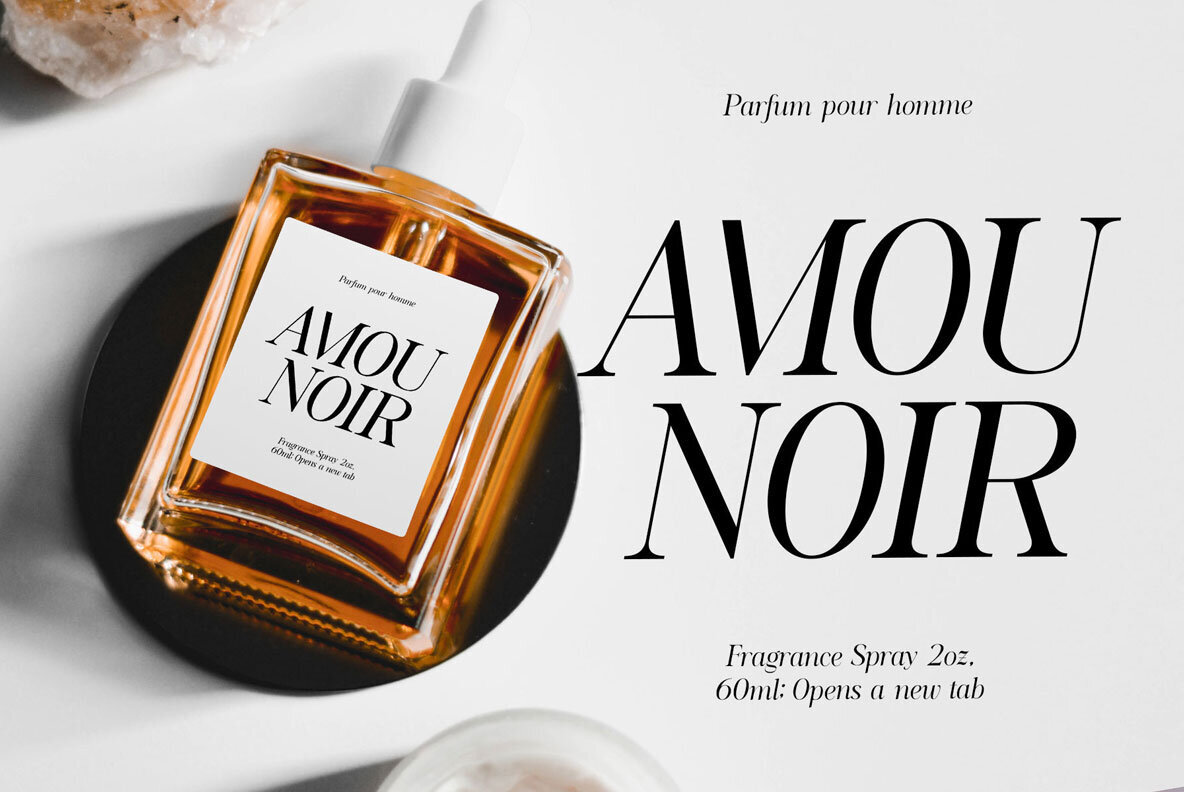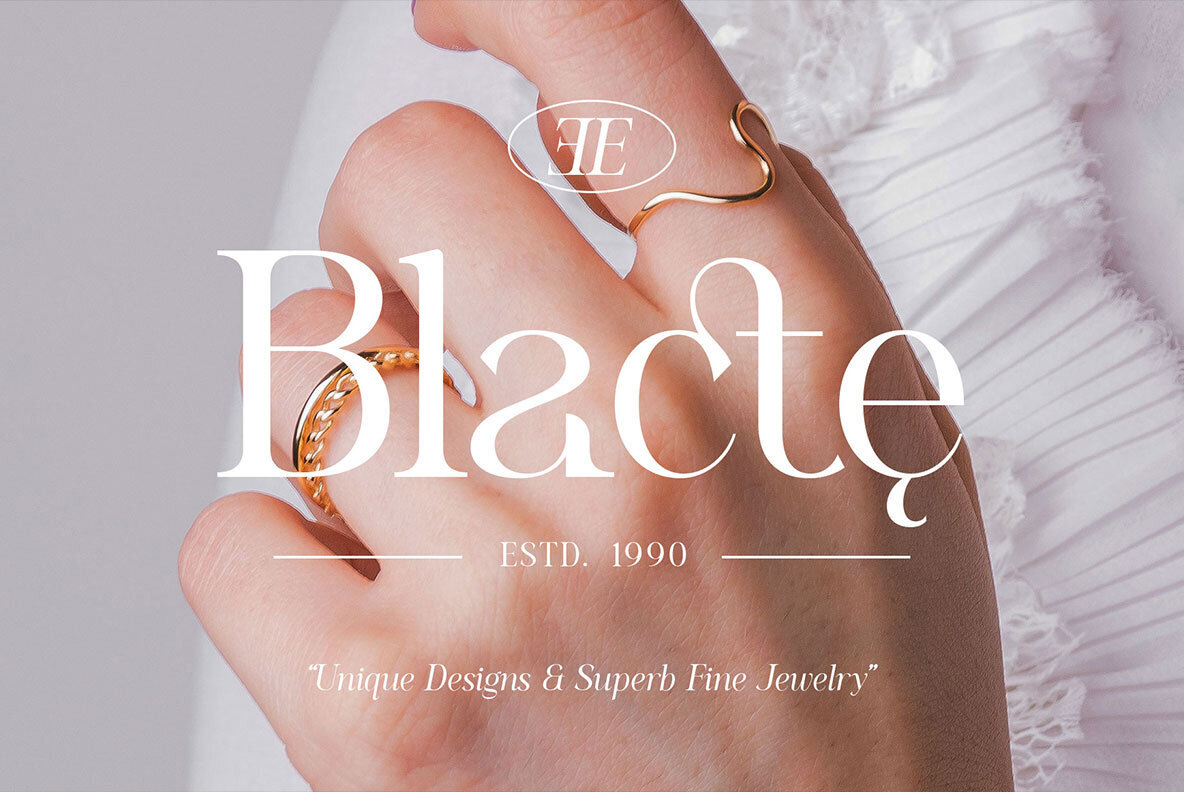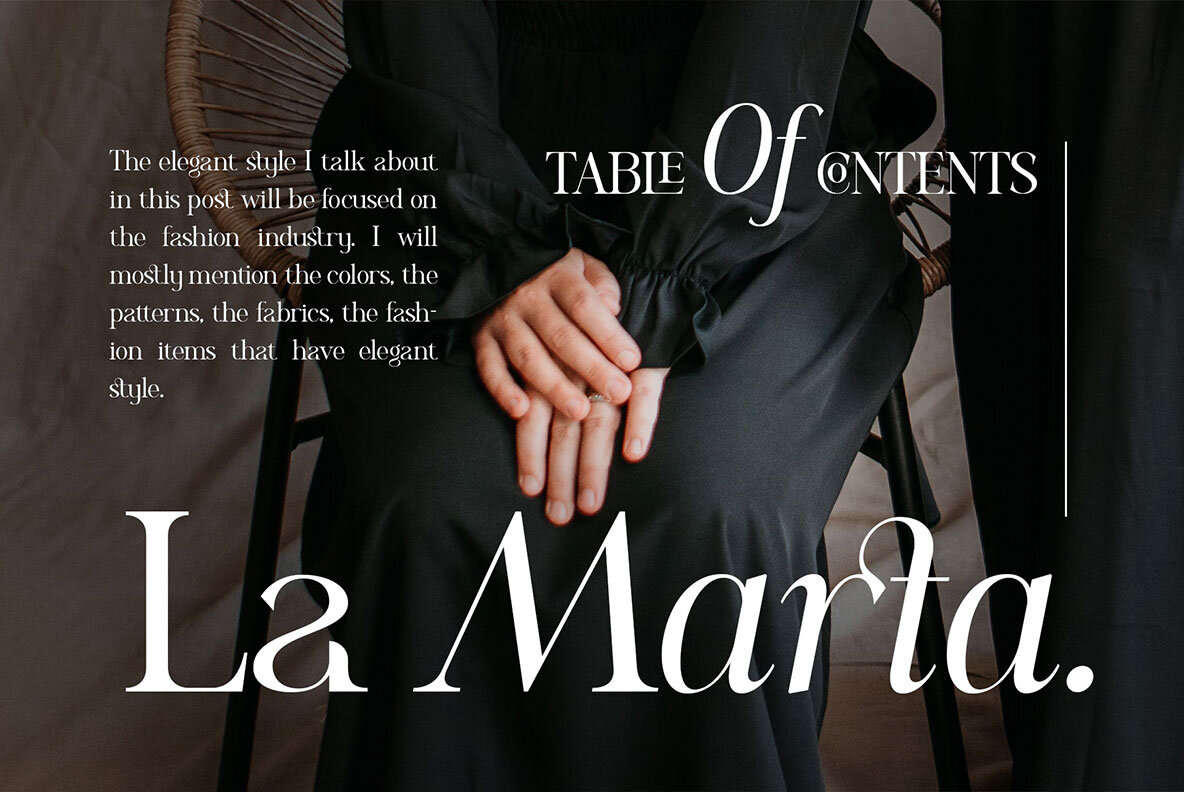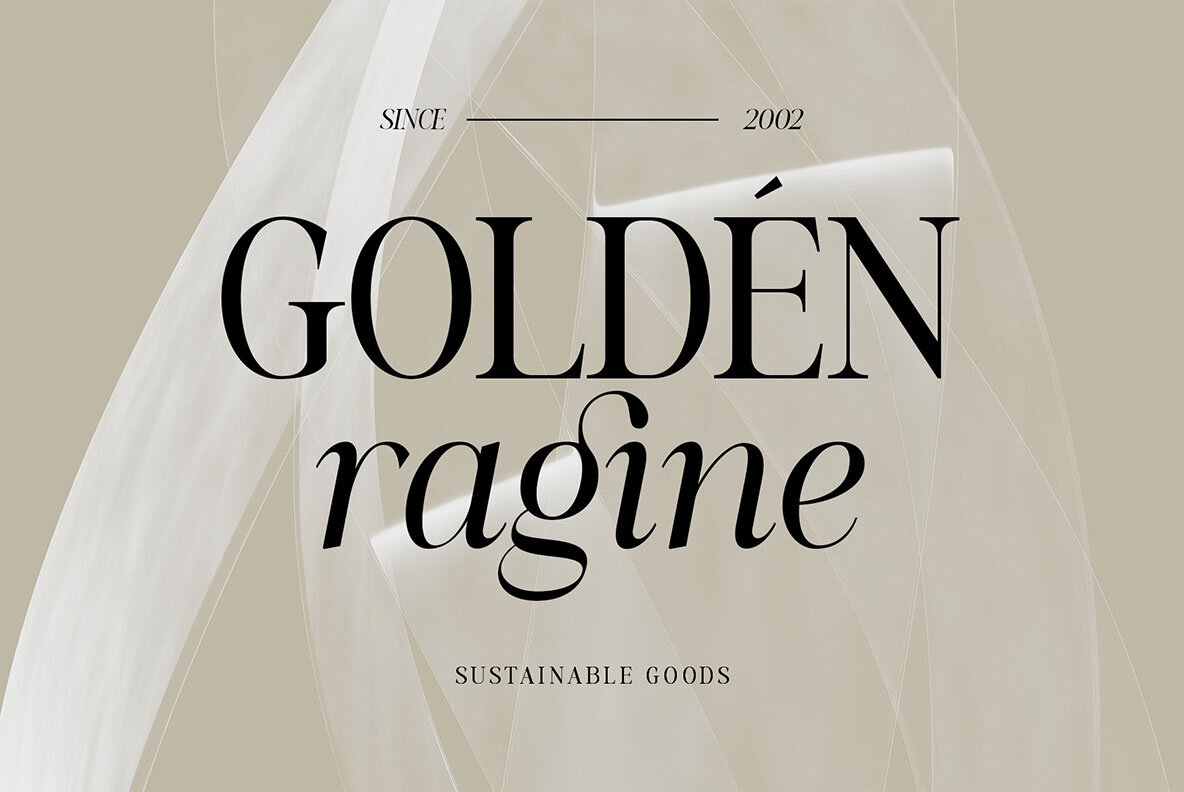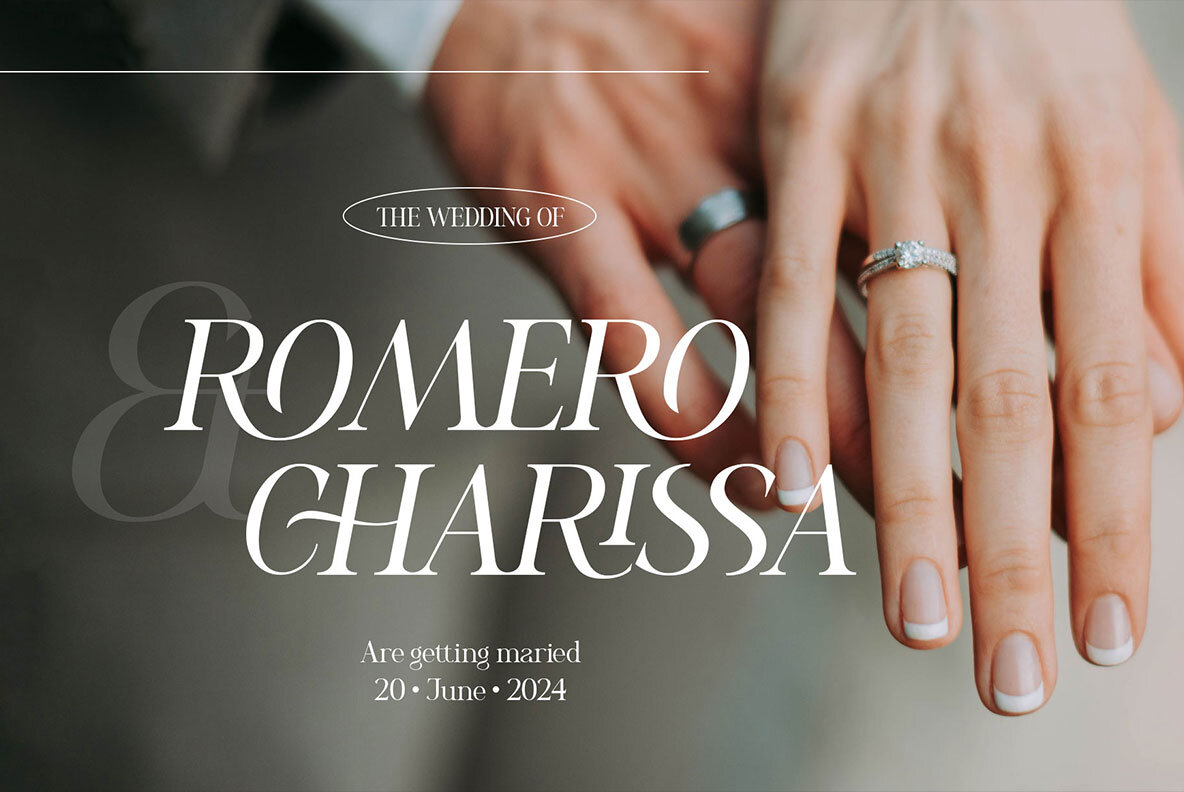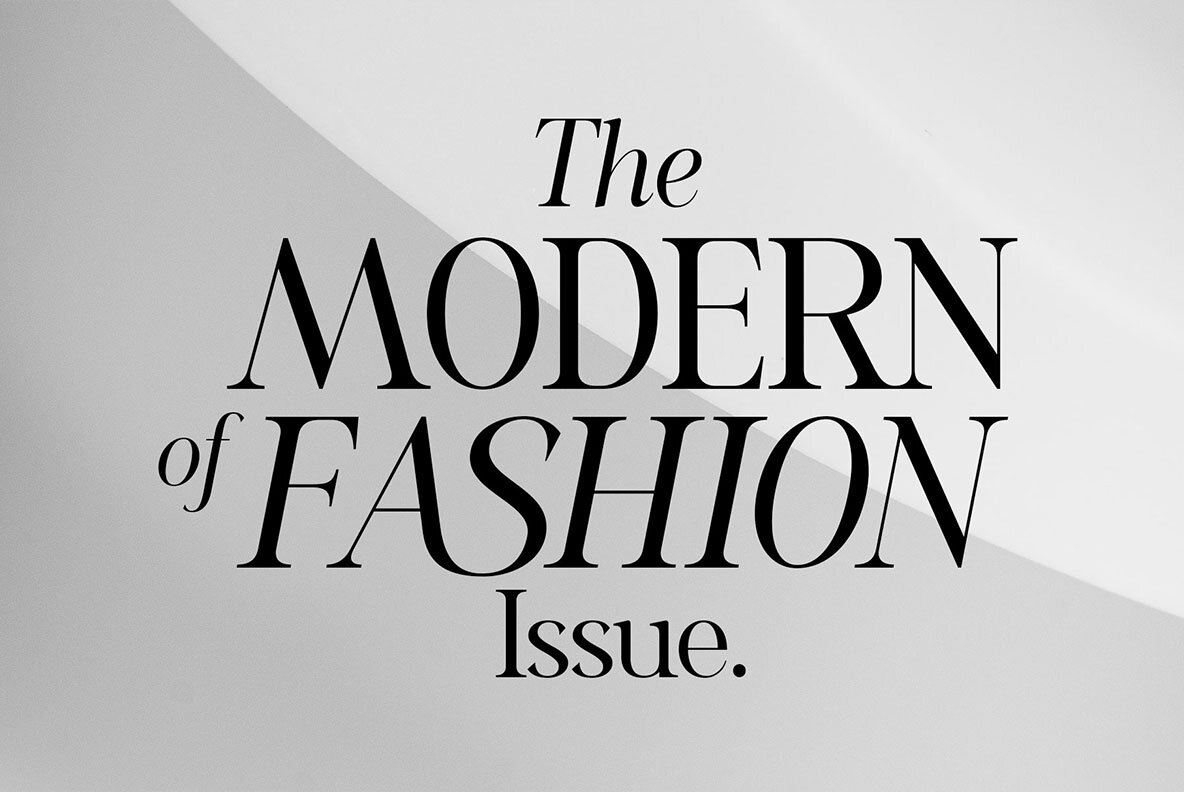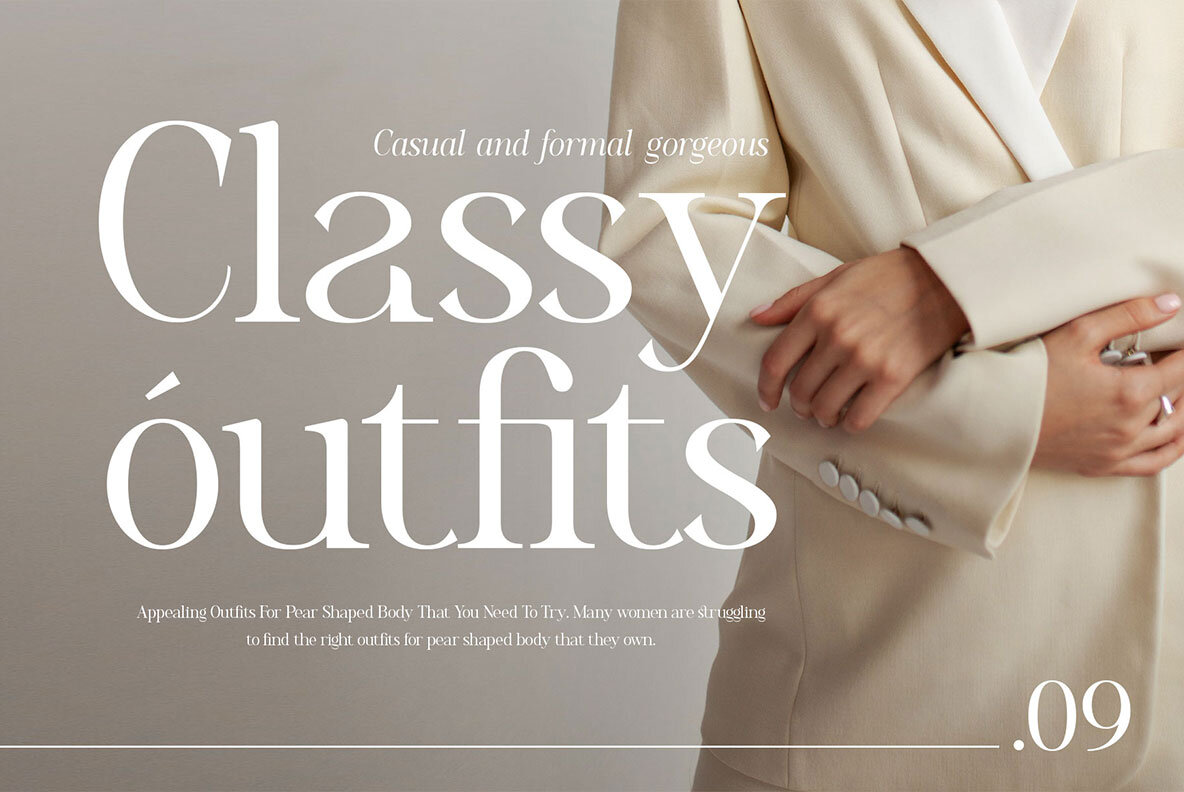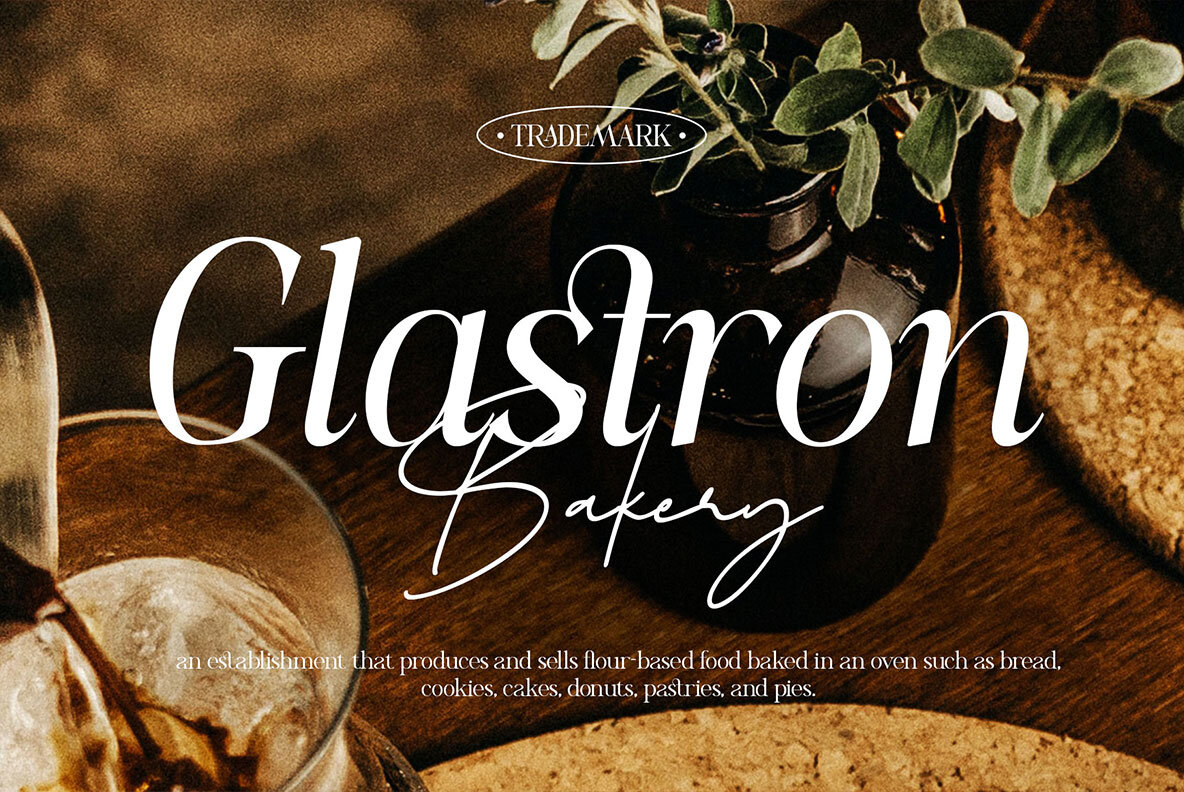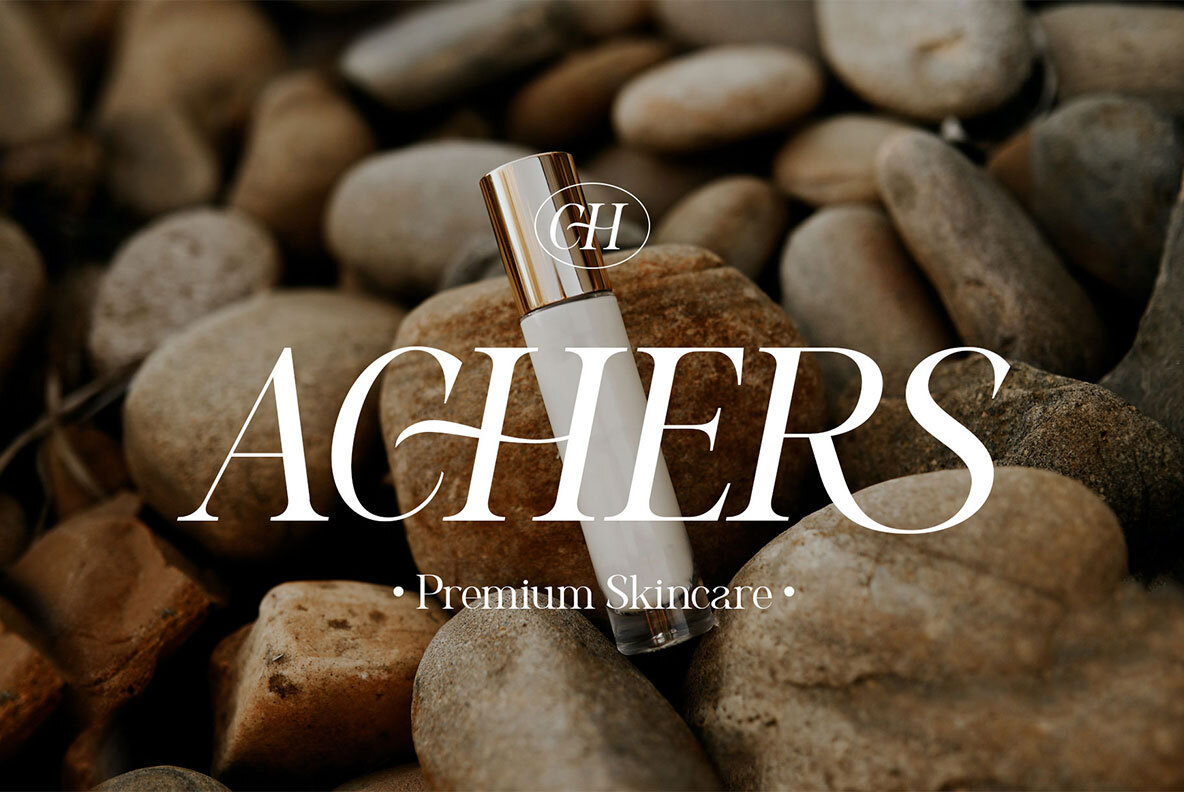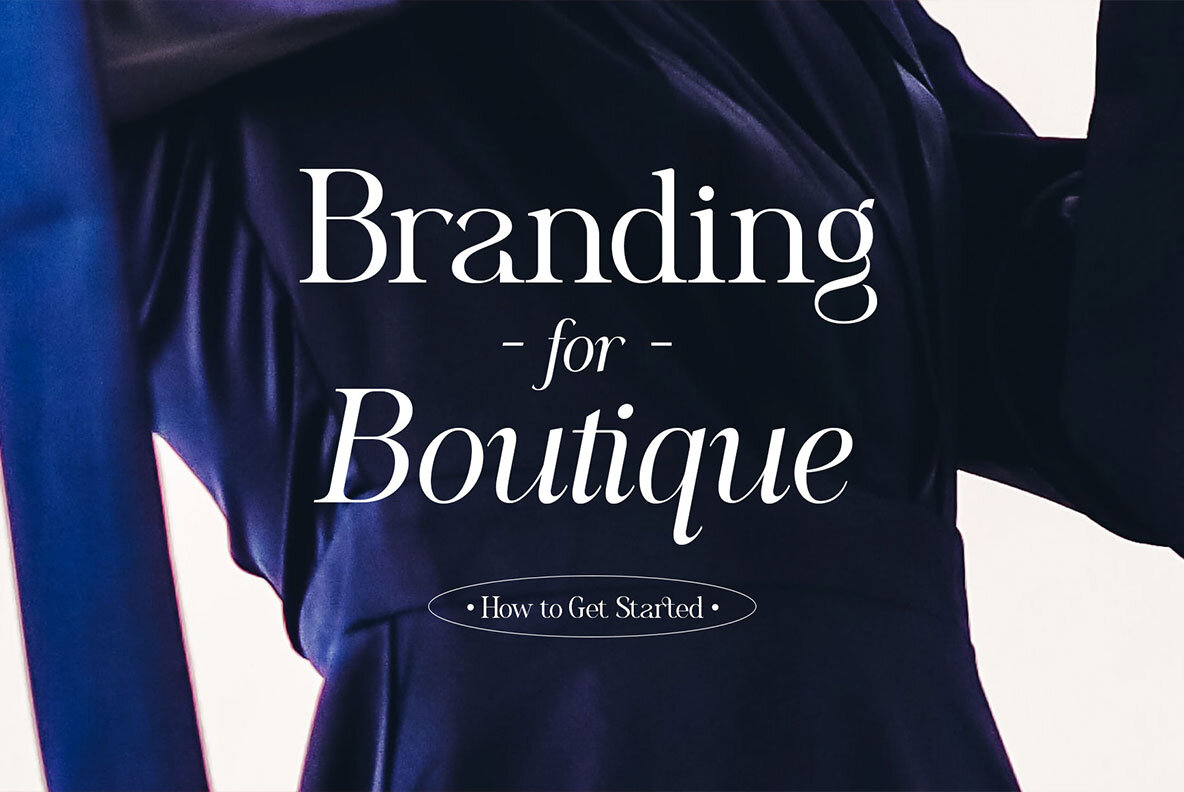
Romelu Font
Romelu Vomelu offers a sophisticated approach to modern typography, drawing inspiration from the charm of classic serif fonts infused with beautiful italics. It effortlessly suits logos and display purposes, providing a seamless blend with diverse font types, from sans serif to script, including its own elegant italic variant. Designed for optimal readability, Romelu Vomelu in both Regular and Italic styles works superbly for body text, ensuring clarity even at medium sizes. With an assortment of ligatures and special characters, this font elevates the appeal and class of any design. It's a smart choice for branding and design projects requiring both aesthetic and functional qualities.Romelu Vomelu: Versatile Typeface with Elegant Flair